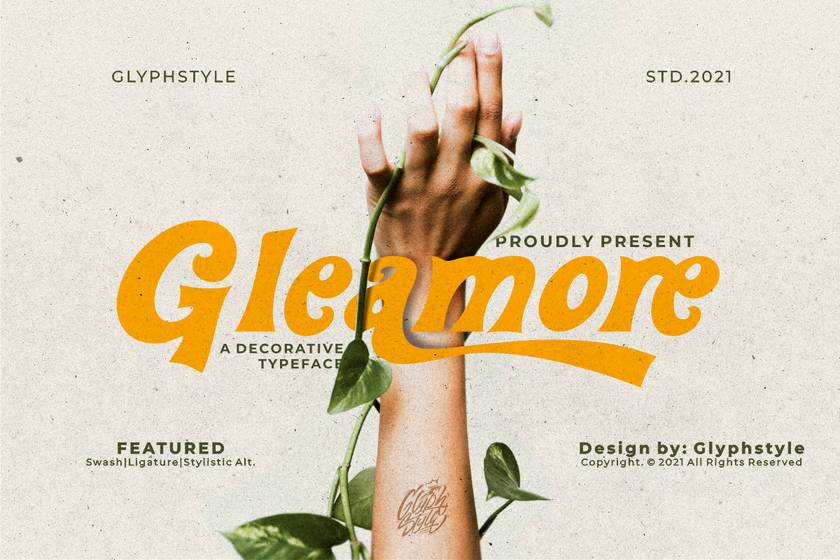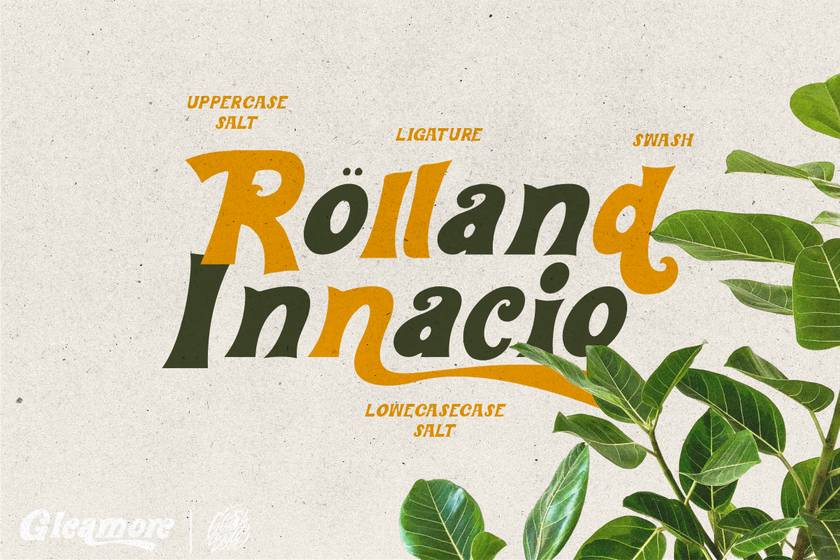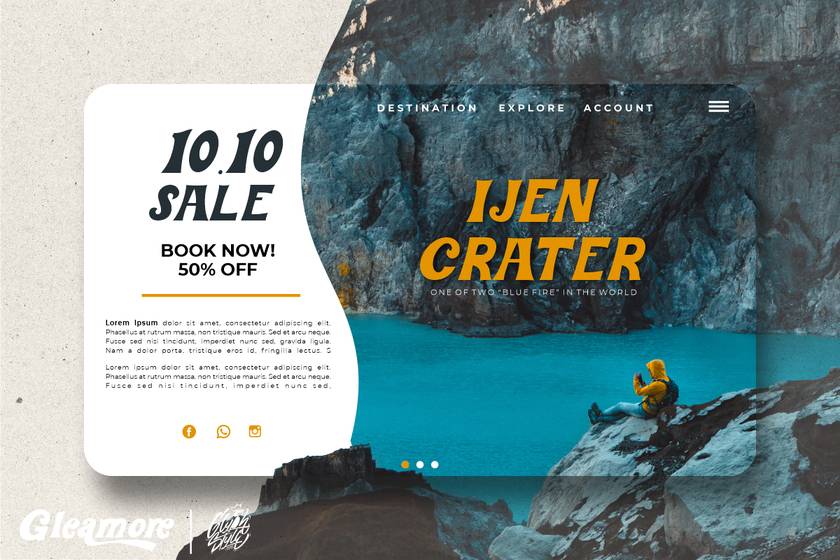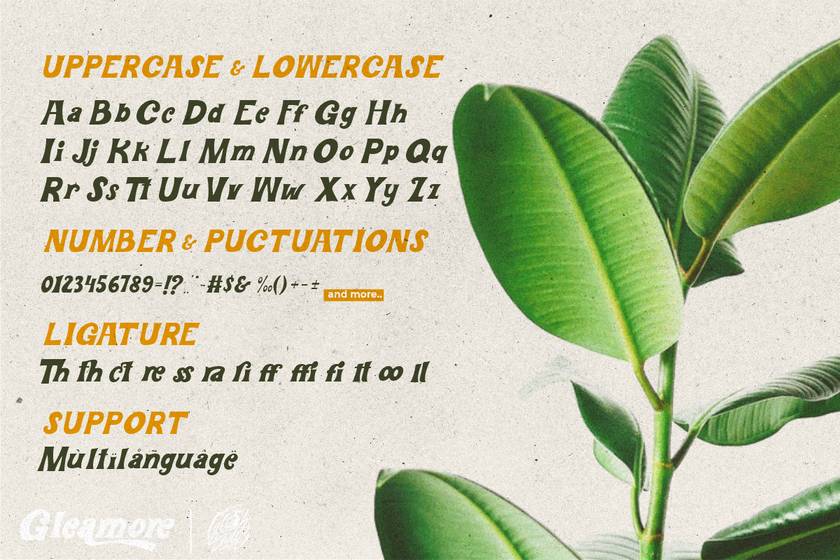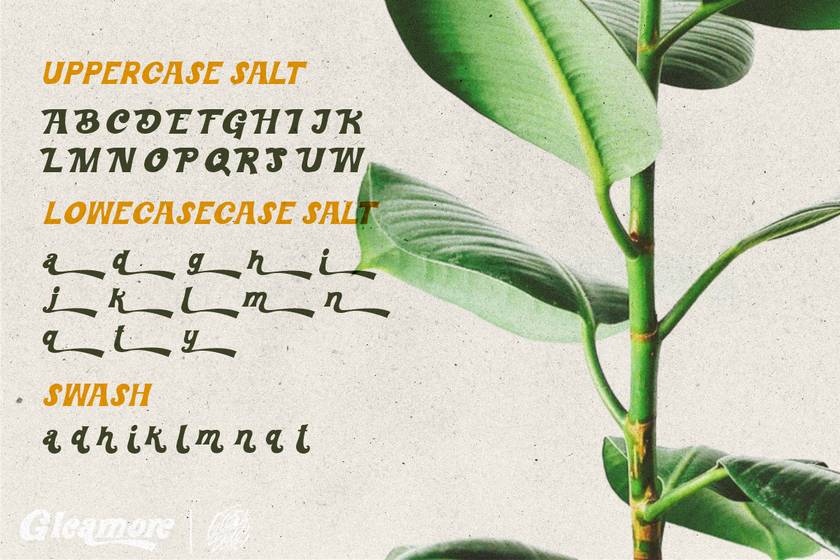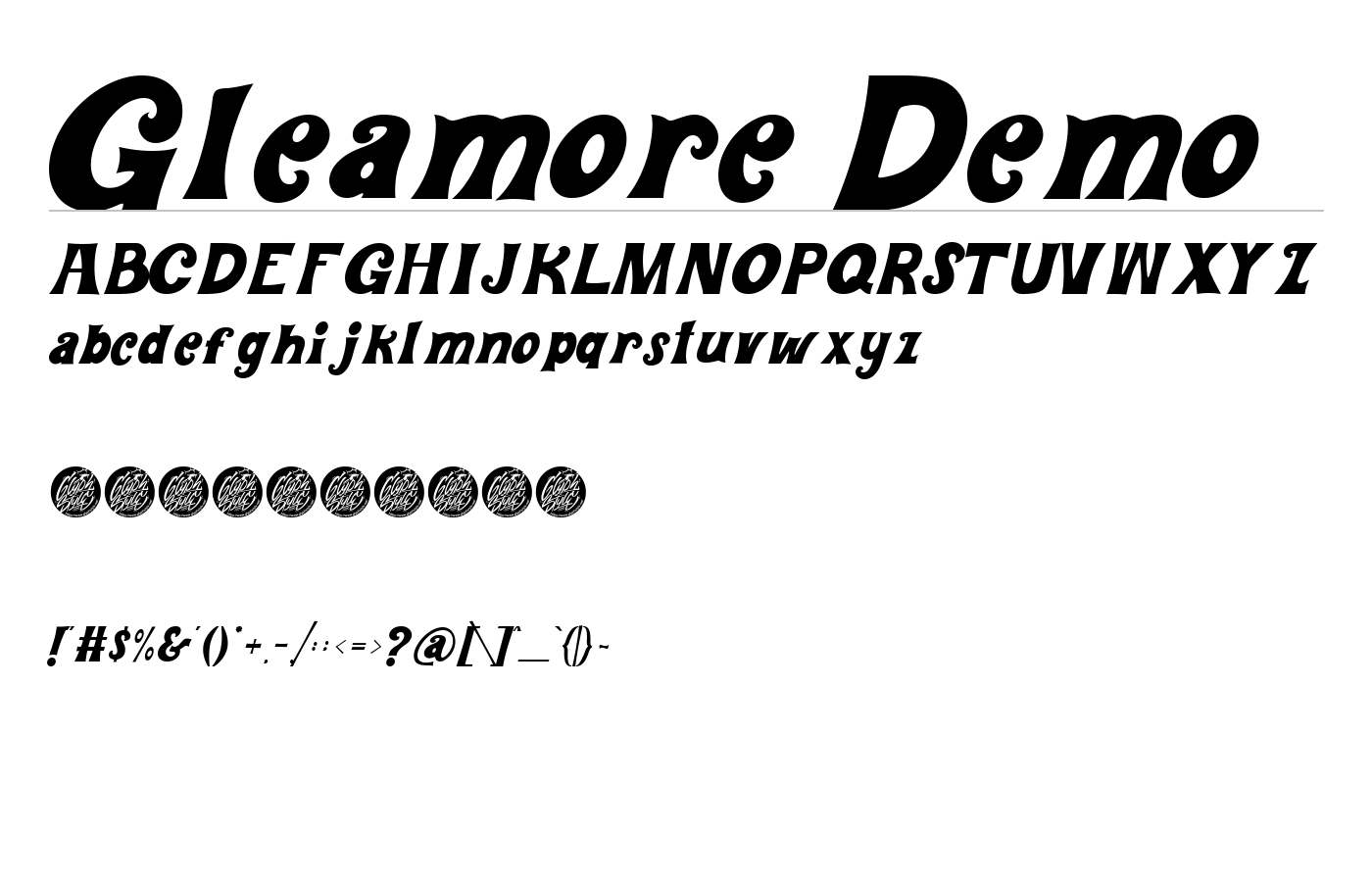
Gleamore is a bold and expressive serif font with a distinctive, slightly condensed style and strong contrast between thick and thin strokes. Its unique, playful letterforms with pronounced curves and sharp serifs give it a vintage yet dynamic feel, making it ideal for eye-catching headlines, logos, and branding that need a touch of elegance and flair. This font works well for creative projects that want to convey personality and impact while maintaining readability.
Gleamore Font
About Gleamore Font
| Font family | Gleamore Font |
| Designer | GlyphStyle |